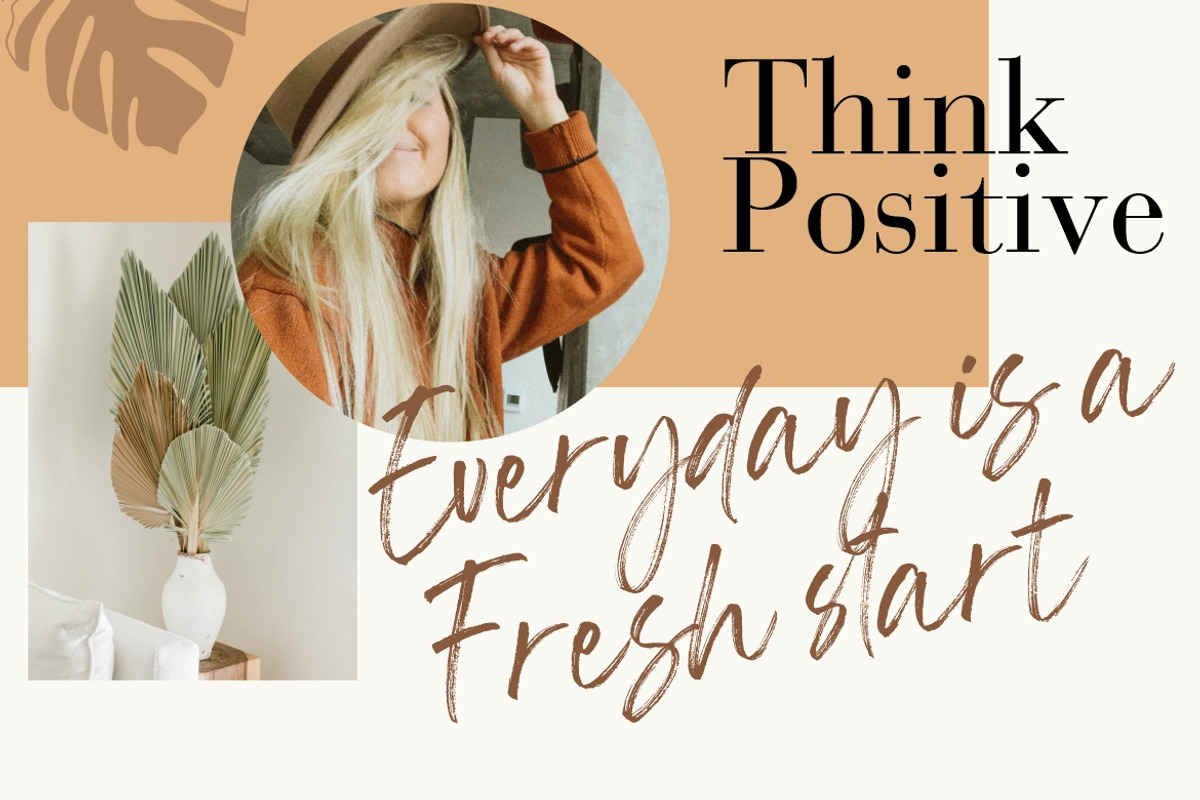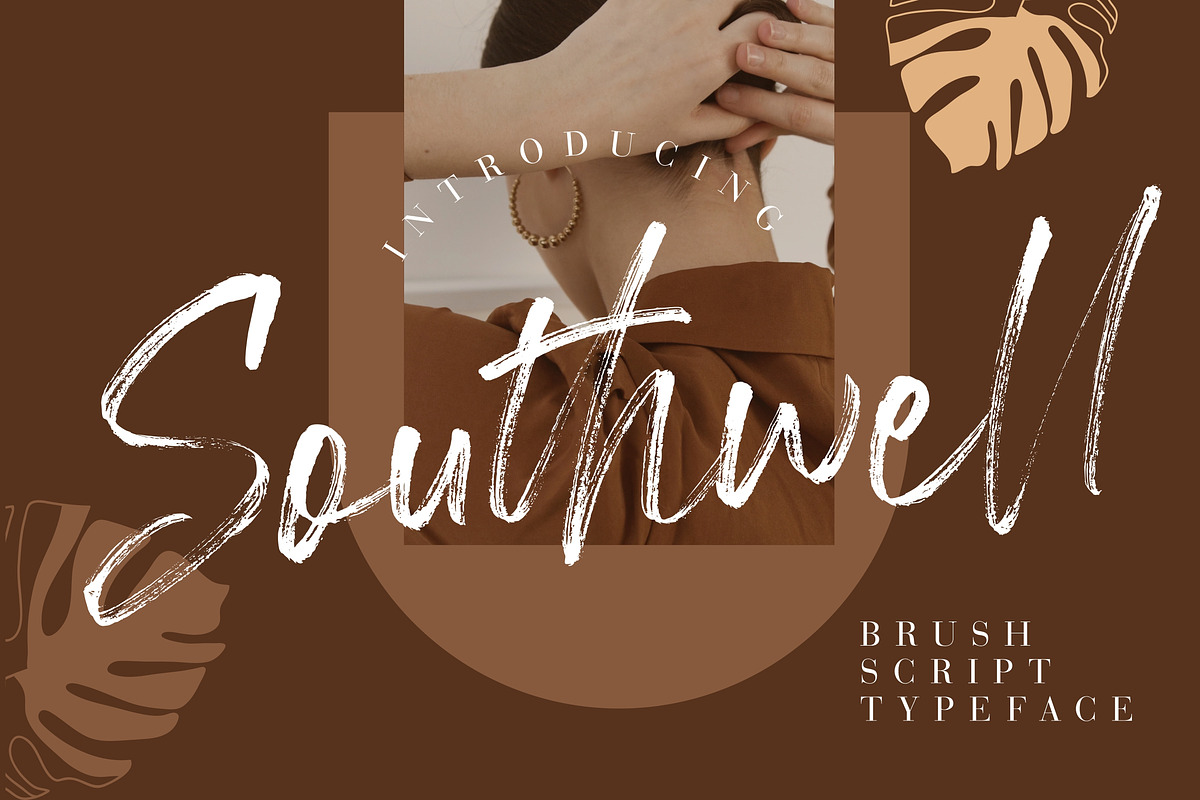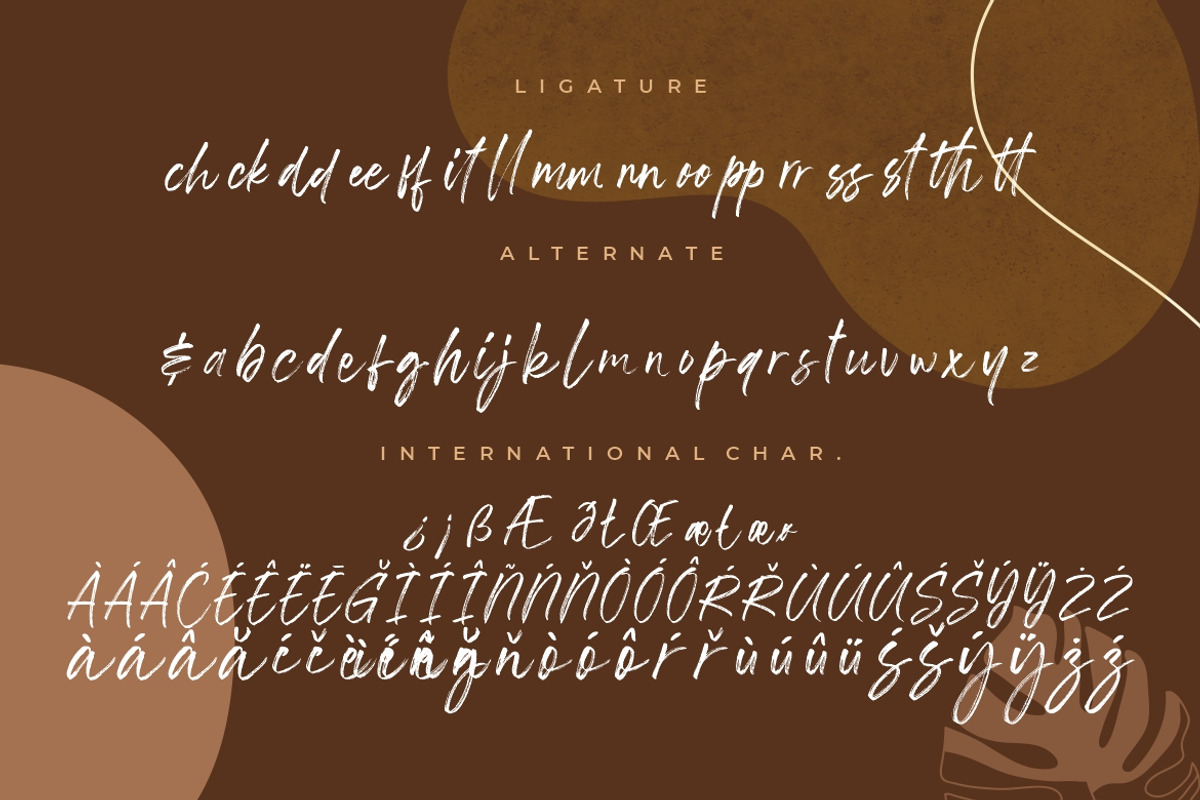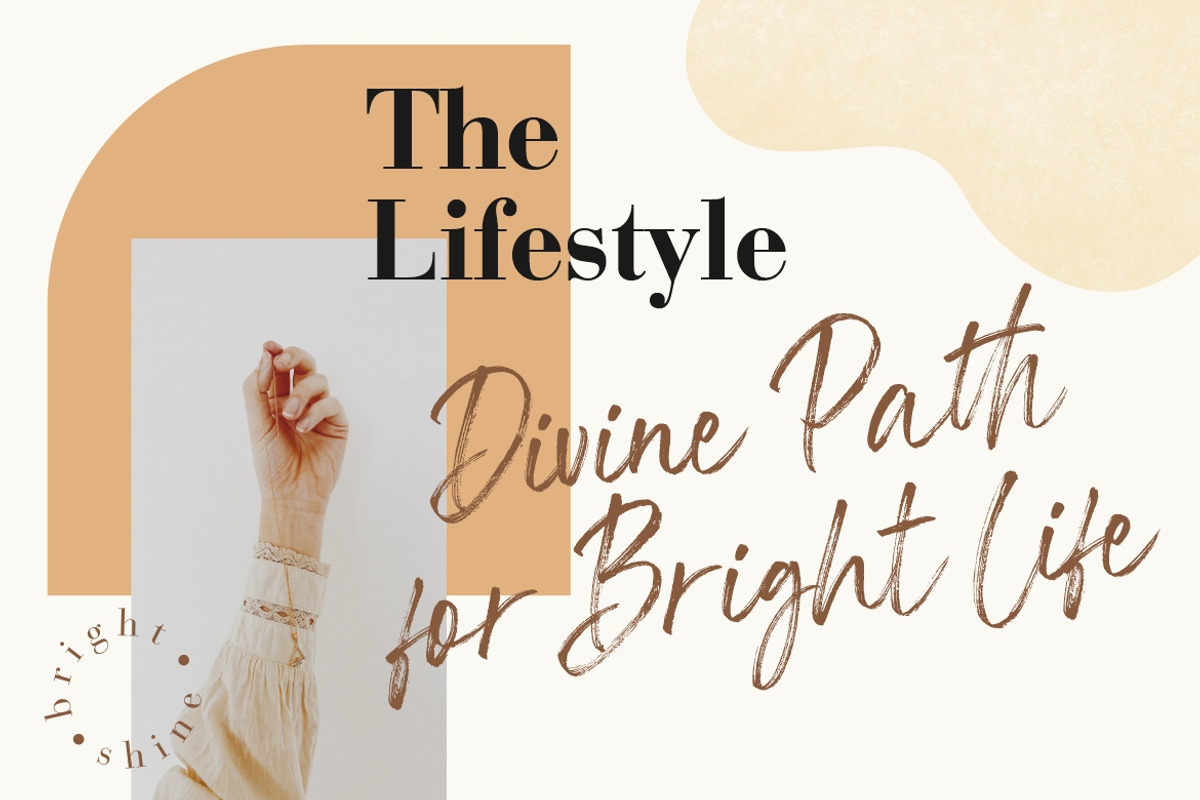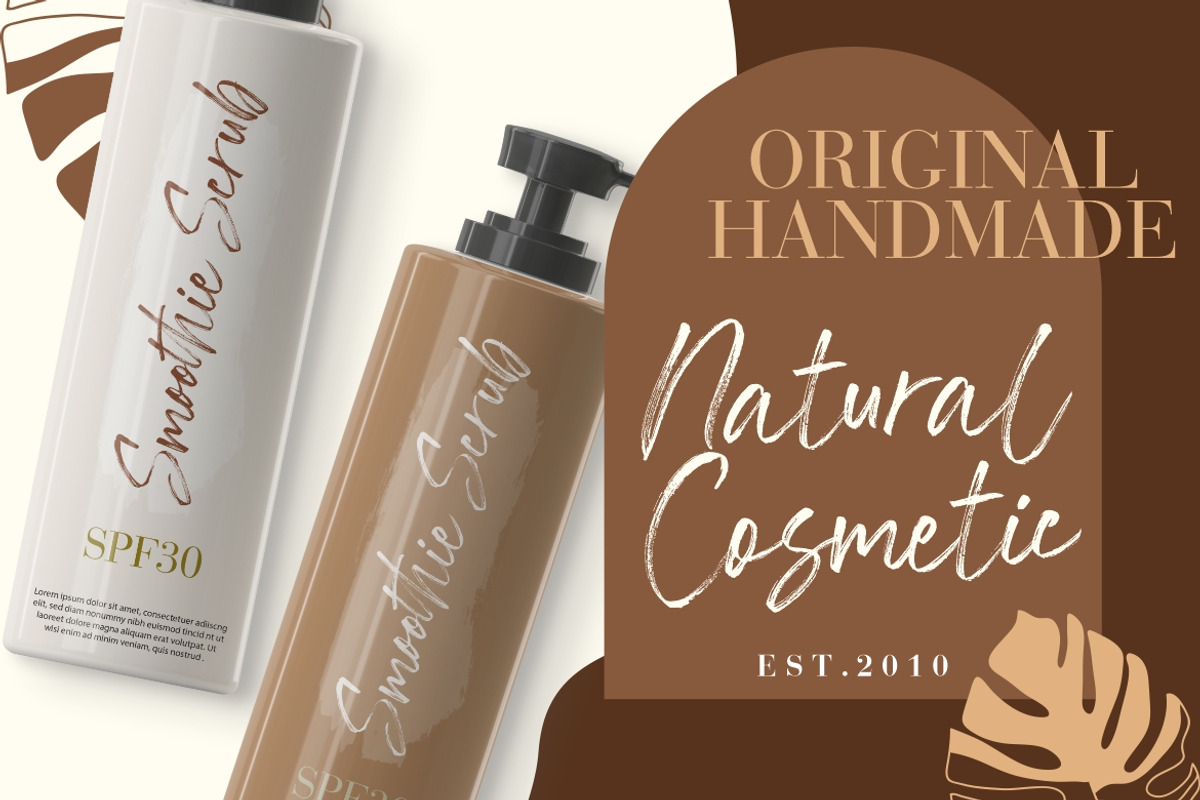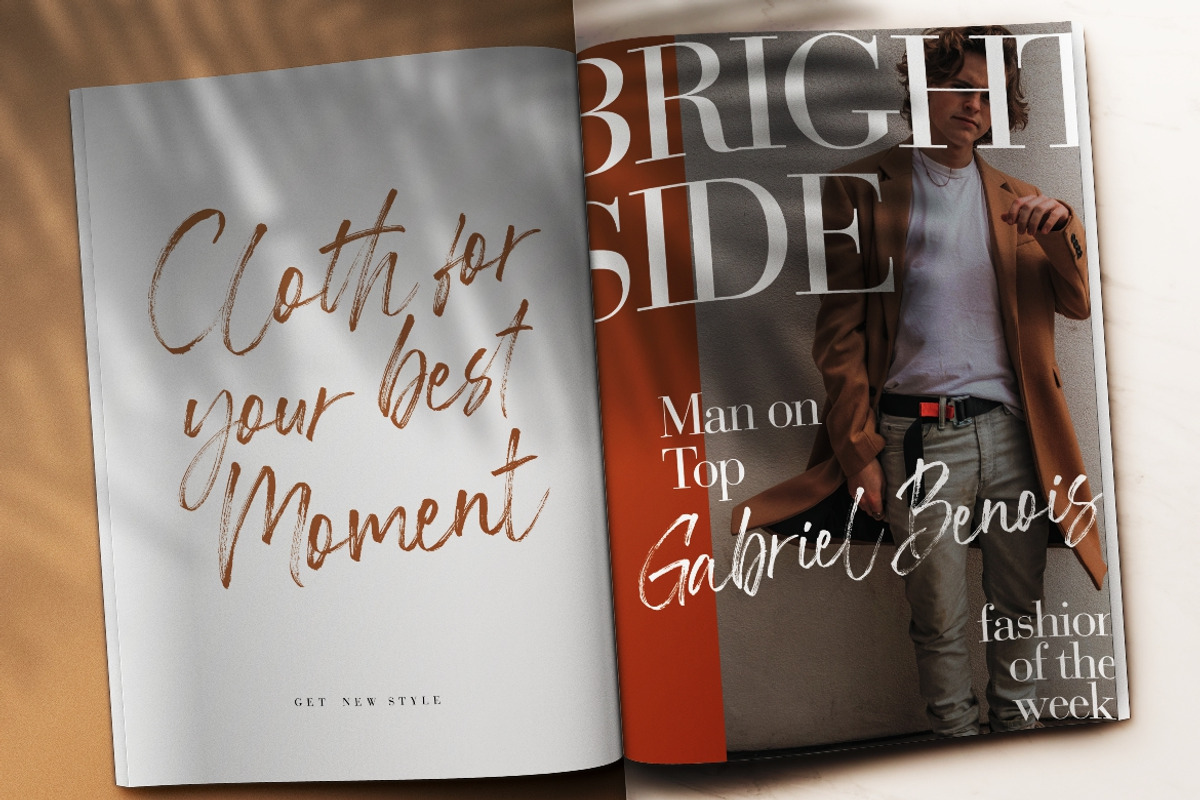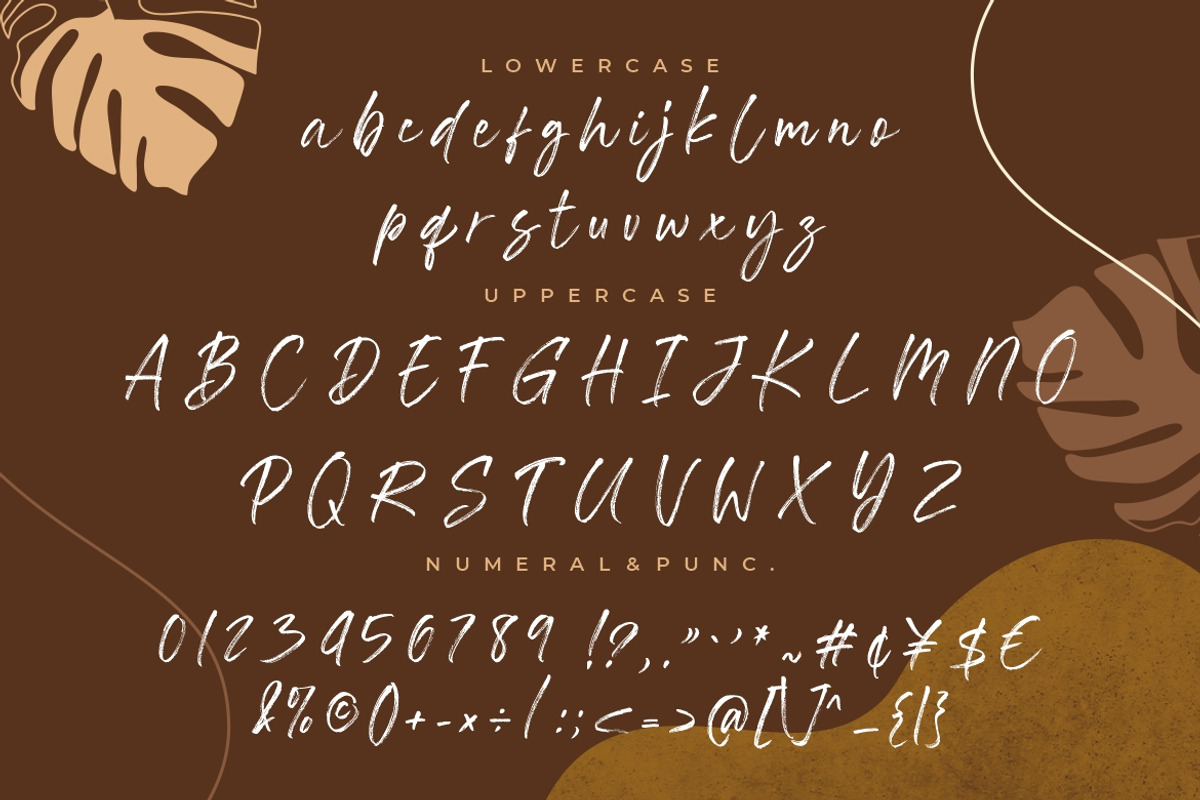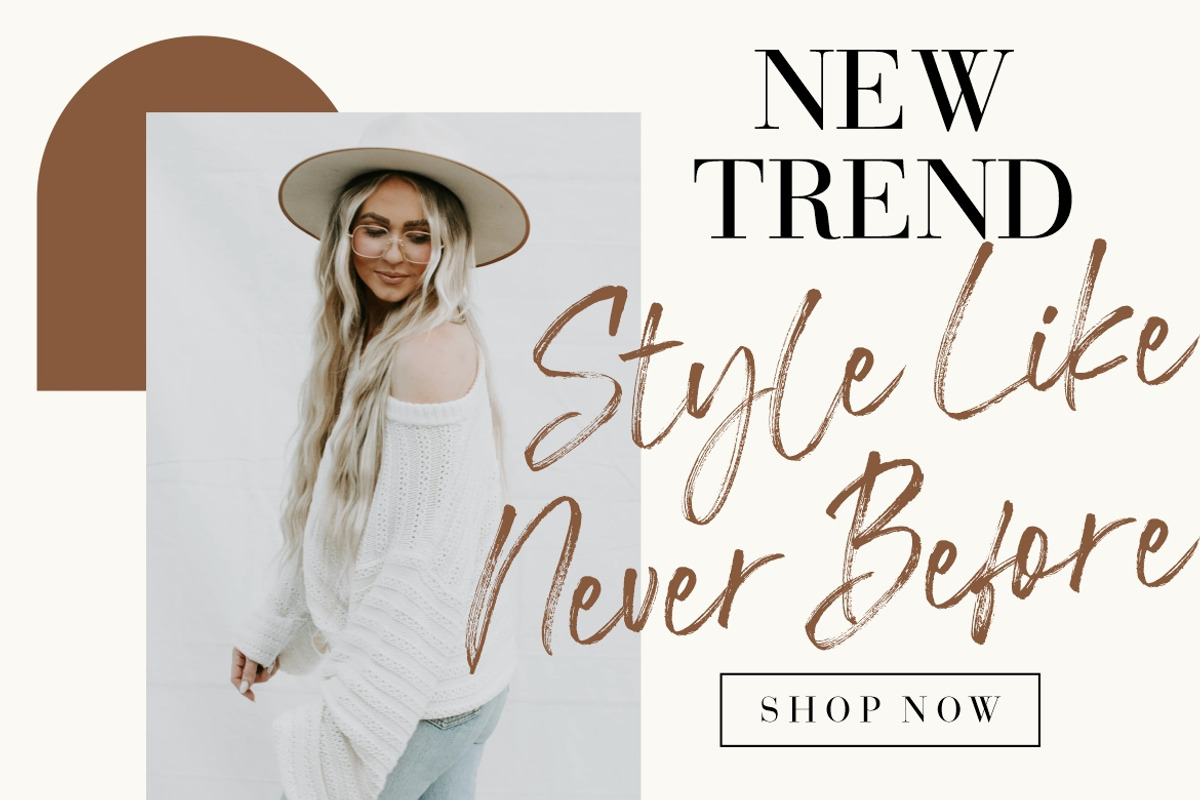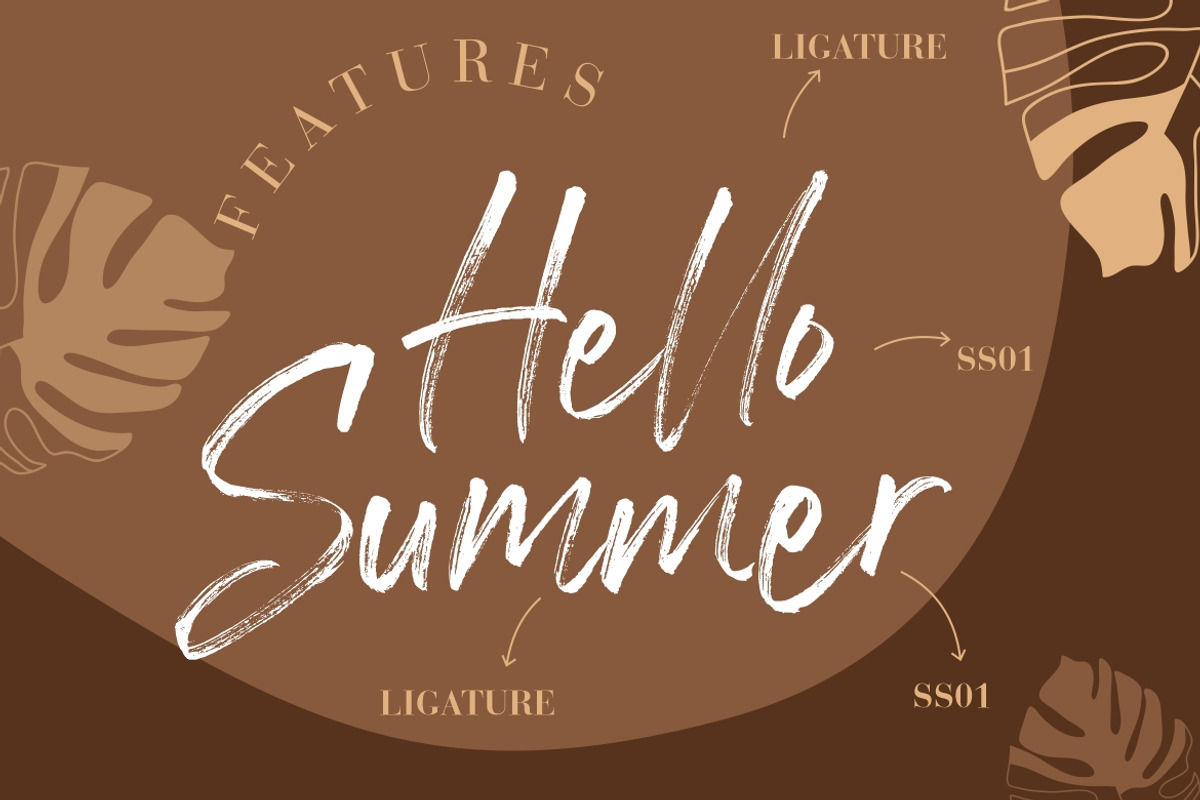
Southwell Brush Script
Southwell is brush script font with scratch effect and natural movement.
Southwell is perfect for branding projects, logo, wedding designs, social media posts, advertisements, product packaging, product designs, label, photography, watermark, invitation, stationery and any projects that need handwriting taste.
- Ligature & Alternate
- Fonts include multilingual support for; Afrikaans, Albanian, Czech, Danish, Dutch, English, Estonian, Finnish, French, German, Hungarian, Italian, Latvian, Lithuanian, Norwegian, Polish, Portugese, Slovak, Slovenian, Spanisch, Swedish.